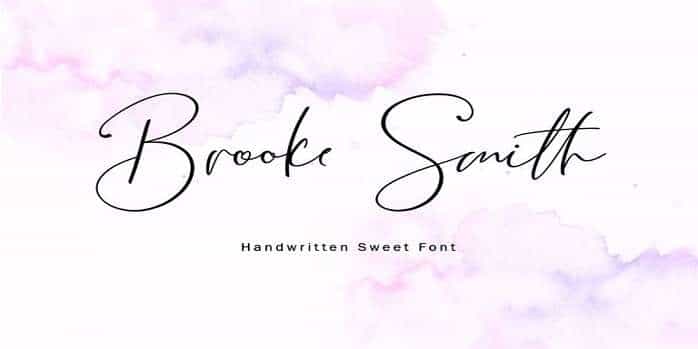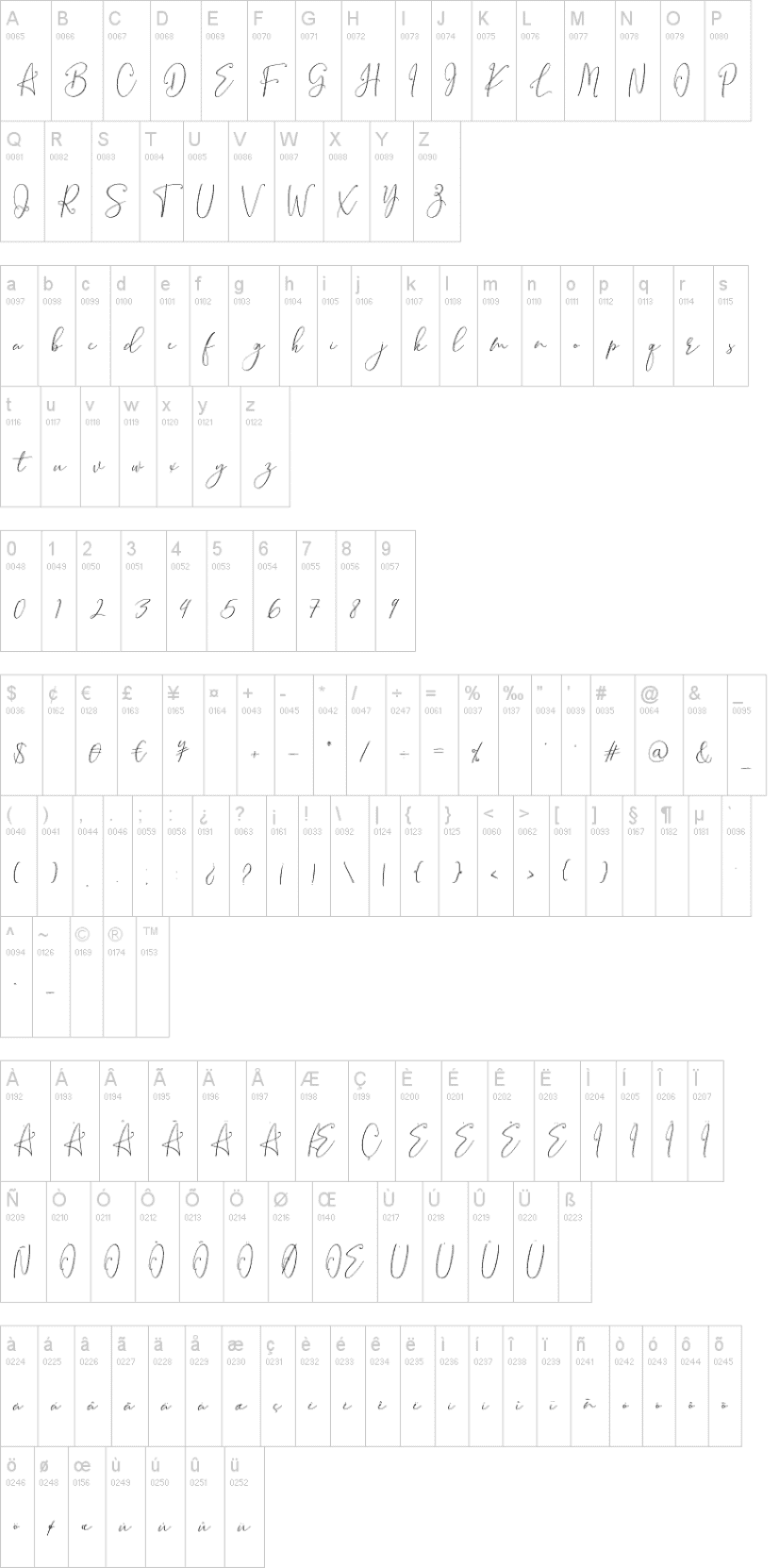
The Brooke Smith Script font is a contemporary calligraphy that is in line with the writing trend today, suitable for branding, wedding invitations, magazines, mugs, business cards, quotes, and posters, among others, you can preview if you wish to purchase this font.